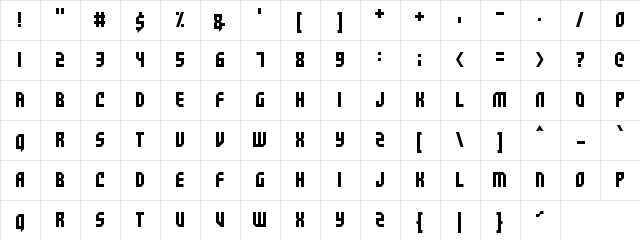
Space Crusader Regular
| Designer | Darrell Flood |
Design Context for Space Crusader Typeface
Space Crusader is a composed and adaptable typeface that performs quietly and consistently across a wide range of design contexts.